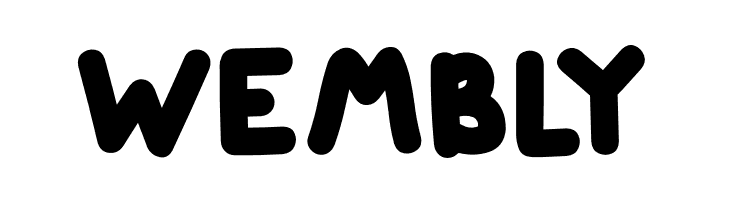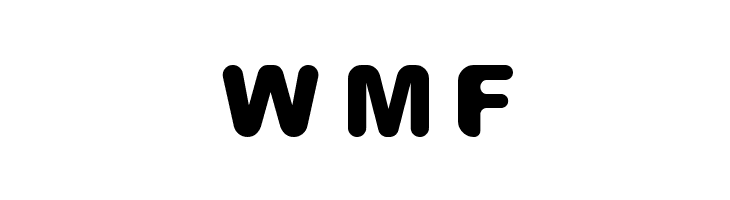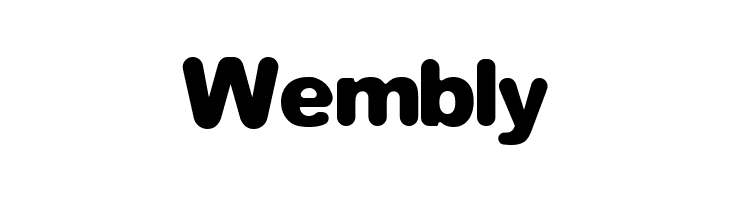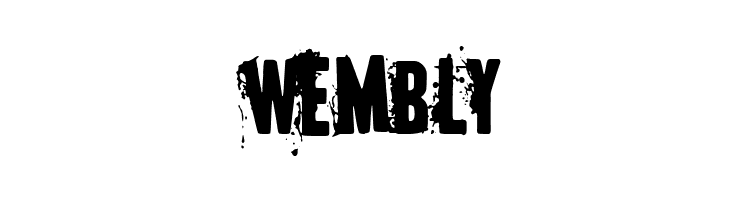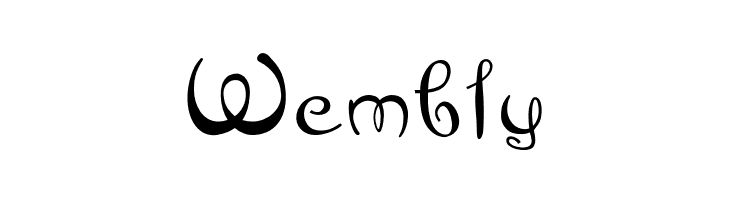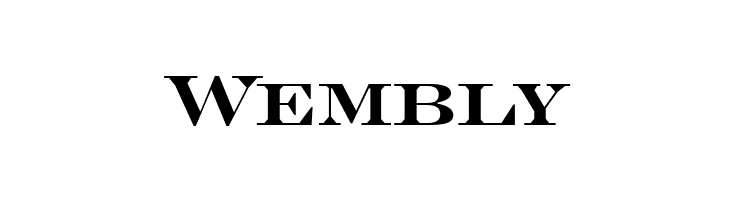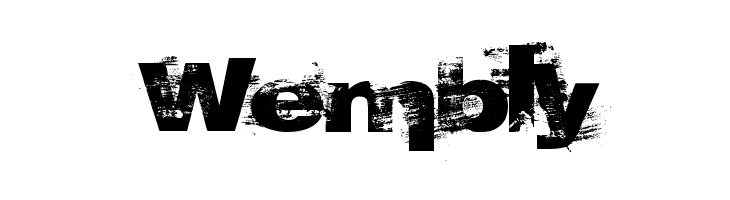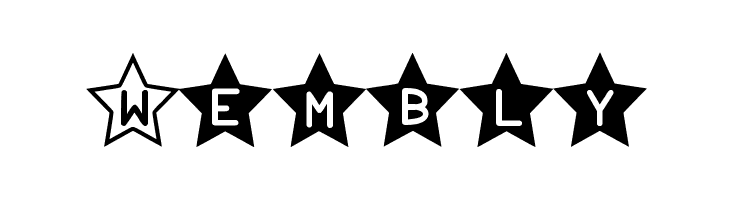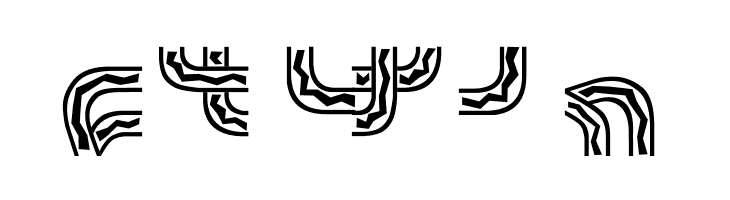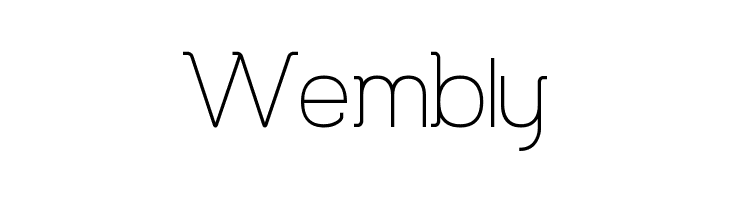
A decorative, vintage-style font with intricate two-line detailing.
A futuristic, geometric font with sharp angles and segmented design.
A bold, modern font with strong geometric shapes and clear lines.
A whimsical and artistic font with curvy, fluid strokes and dynamic character design.
A bold, futuristic font with rounded edges and a digital aesthetic.
A bold, distressed font with a grunge texture and rugged appearance.
A bold, rounded font with a modern and friendly aesthetic.
A casual, handwritten-style font with irregular strokes and playful character spacing.
A distressed, slab serif font with a rugged, worn appearance.
Whimsical decorative font with cartoon devil illustrations instead of letters.
A bold, distressed font with splattered, grunge-style characters.
A jagged, ice-inspired font with a playful and bold design.
A playful, jagged font with an icy, adventurous feel.
A modern, geometric sans-serif font with clean lines and balanced spacing.
A clean, geometric font with consistent stroke widths and a modern aesthetic.
A decorative font with a geometric, triangular pattern creating each character.
A decorative serif font with textured vertical lines and sharp serifs.
A decorative font with bold uppercase letters enclosed in star shapes.
Illustrative, ethnographic font with cultural motifs and figures.
A playful, bold font with rounded edges and a hand-drawn feel.
A modern, geometric font with consistent stroke widths and a clean, structured appearance.